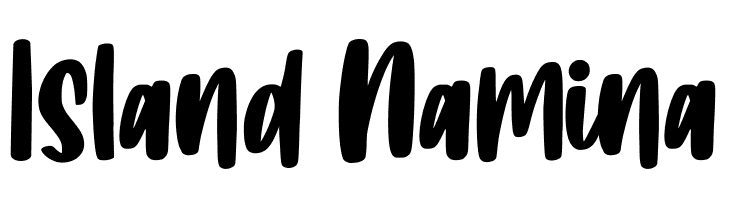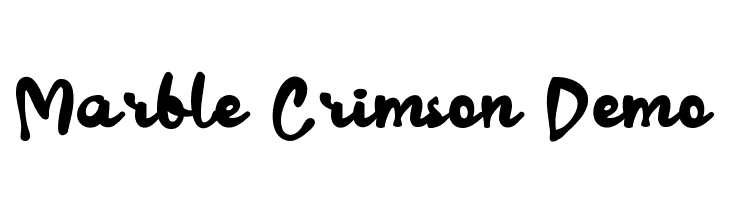
Ultra-light, semi-condensed geometric sans-serif with minimal, modern design.
A bold, geometric font with a futuristic and modern aesthetic.
A bold, expressive handwritten font with dynamic slanted strokes.
A bold, expressive brush-style font with an artistic, hand-painted look.
A playful and elegant script font with flowing cursive letters.
A hand-drawn, chalk-like font with a playful and informal style.
A lively, fluid handwritten script with smooth curves and a personal touch.
A sleek, modern italic font with geometric lines and a futuristic feel.
A bold, italicized font with a futuristic and angular design.
A futuristic, chrome-like font with a geometric and industrial design.